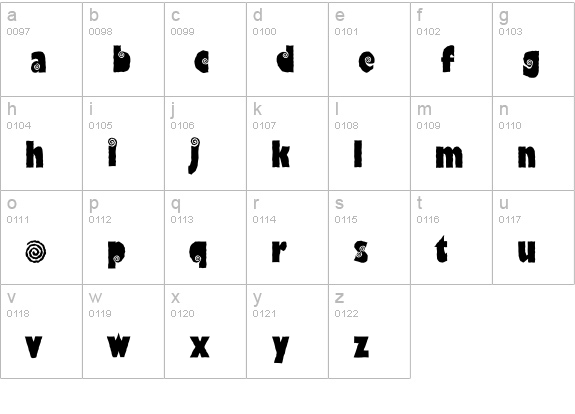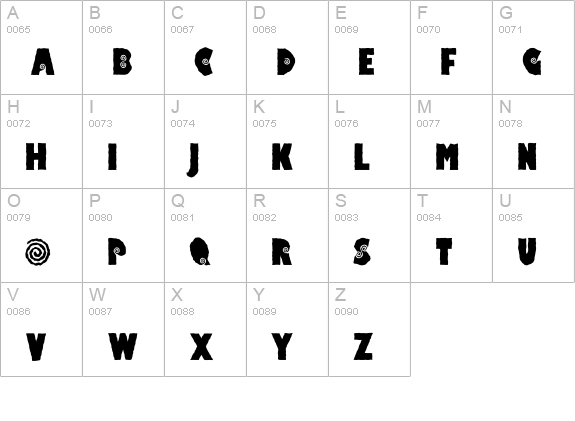
HippoCritic Font Details
Introducing HippoCritic font - a whimsical and charming typeface that exudes a playful and friendly vibe. This font features quirky shapes and unique letterforms that are sure to make your designs stand out. With its bold strokes and distinctive style, HippoCritic font is perfect for adding a touch of fun to any project. Best of all, HippoCritic font is completely free to download at FontsMarket.com. Whether you're working on a poster, logo, or social media graphic, this font will add a touch of personality and creativity to your designs. Don't miss out on the opportunity to enhance your projects with this delightful font - download HippoCritic today and let your creativity run wild!